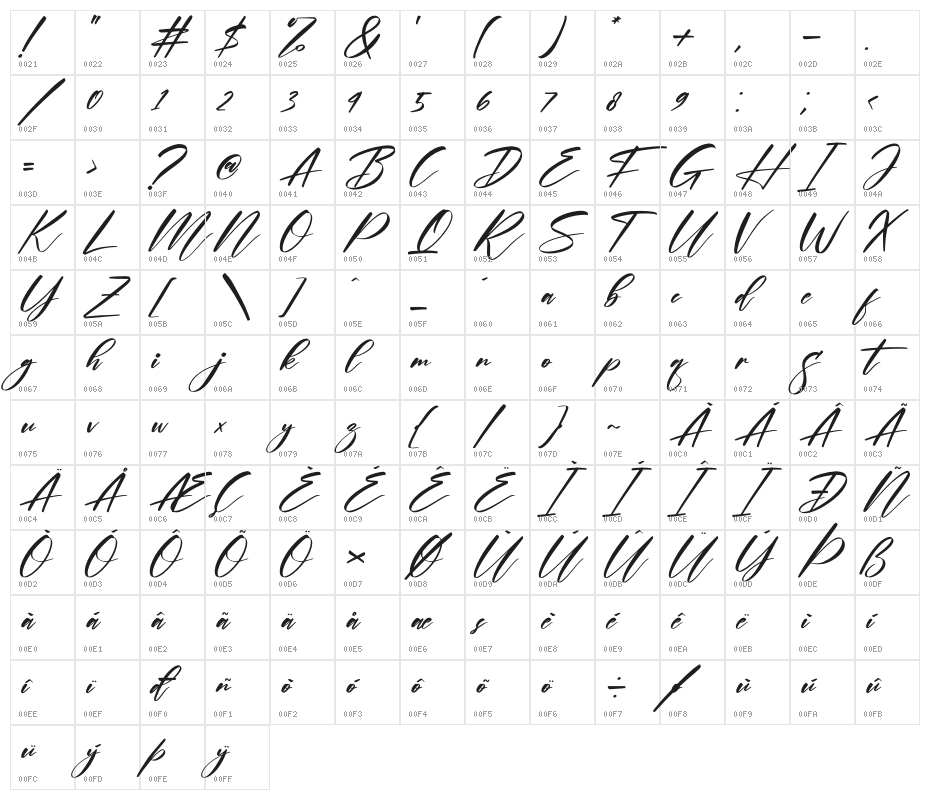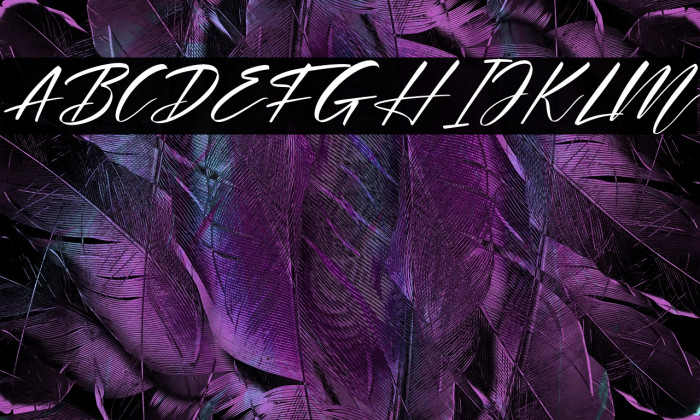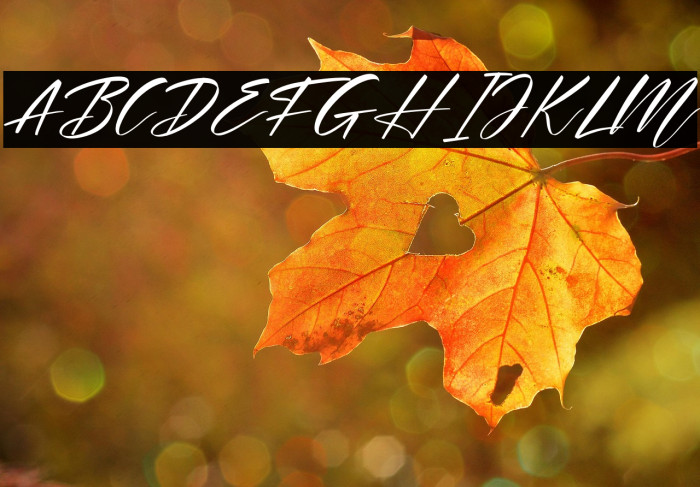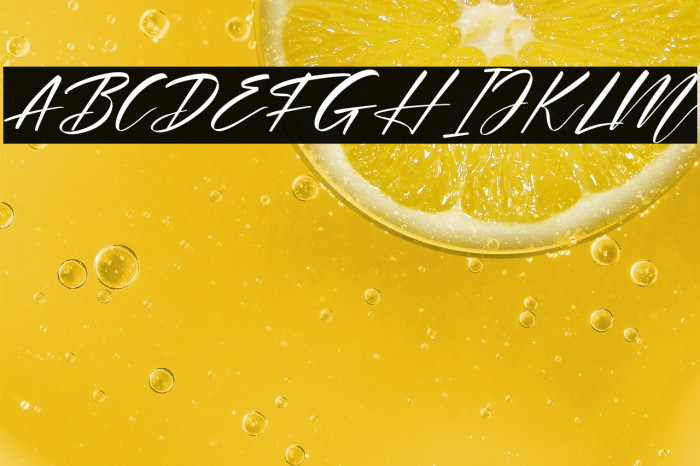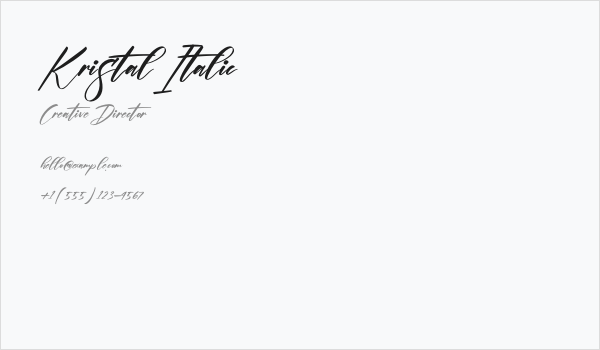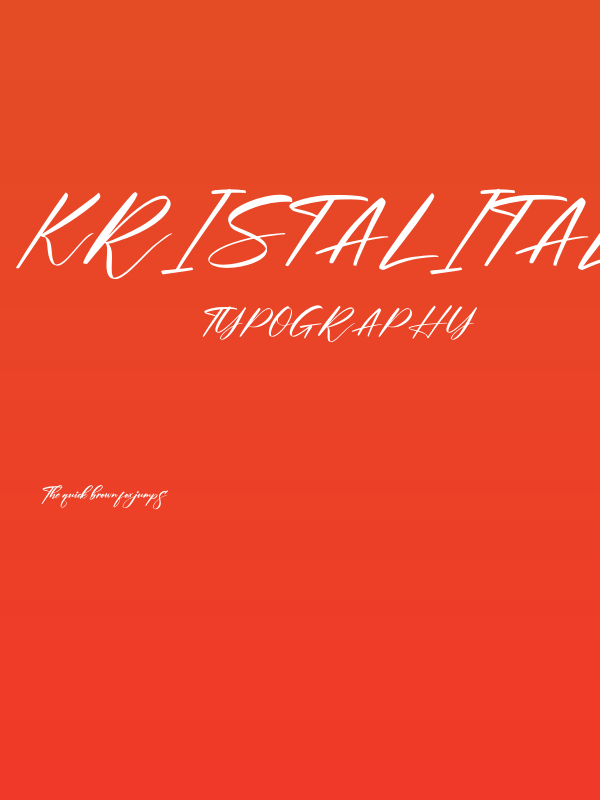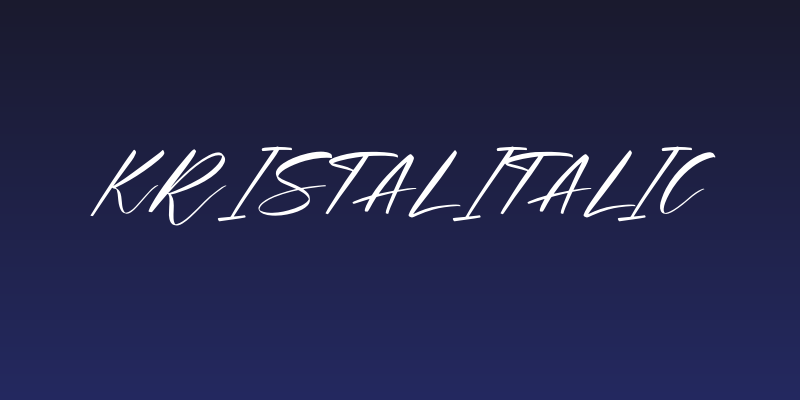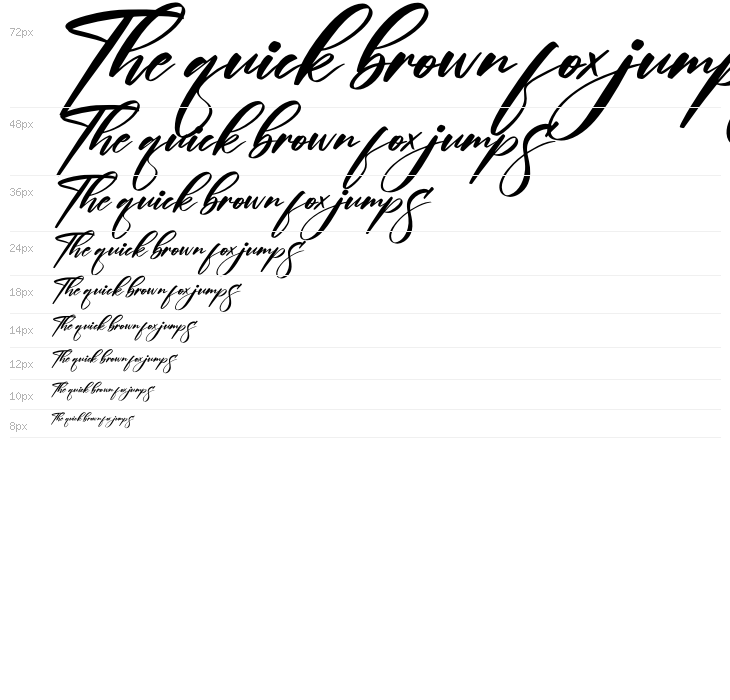
Kristal Italic Font
Kristal Italic Description
This elegant script font features a fluid, cursive style with a distinct italic slant, giving it a sense of movement and grace. The uppercase letters are bold and sweeping, with exaggerated loops and flourishes that add a touch of sophistication. The lowercase letters are more compact but maintain the same flowing quality, making them highly legible despite their decorative nature. The numerals and special characters follow the same stylistic cues, ensuring consistency throughout. This font's high contrast between thick and thin strokes enhances its dramatic appearance, making it ideal for eye-catching designs.
| Proposed Projects | Ideal for wedding invitations, luxury branding, elegant packaging, and artistic posters. |